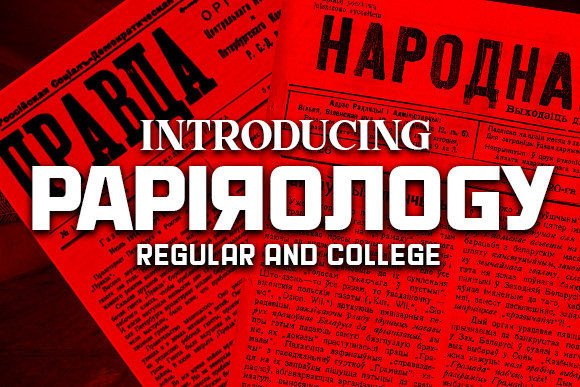
Discover Papirology, the Majestic Display Font That Captivates Hearts
Embark on a typographic journey through time with Papirology, an awe-inspiring Soviet-inspired display font. This meticulously crafted font embodies the grandeur of a bygone era, evoking a sense of nostalgia and wonder in every character.
With its bold and confident strokes, Papirology commands attention on posters, banners, book covers, and any design seeking a touch of solemnity and sophistication. Its unique letterforms, reminiscent of vintage propaganda posters, add a layer of intrigue and authenticity to your creations.
Whether you're a seasoned designer or just starting your creative journey, Papirology is the perfect font to elevate your projects. Its versatility knows no bounds, adapting seamlessly to a wide range of applications, from elegant wedding invitations to captivating social media posts.
Papirology possesses an inherent charm that draws viewers in, creating an emotional connection that transcends mere aesthetics. Its timeless beauty and captivating presence make it the ideal choice for those seeking to make a lasting impression.
Join the ranks of discerning designers who have embraced Papirology's allure. Let your imagination soar as you explore the endless creative possibilities this extraordinary font offers.
- Experience the grandeur of a Soviet-inspired display font
- Captivate audiences with bold and confident strokes
- Add a touch of nostalgia and wonder to your designs
- Elevate posters, banners, book covers, and more
- Create a lasting impression with timeless beauty
Papirology: A Font That Speaks Volumes